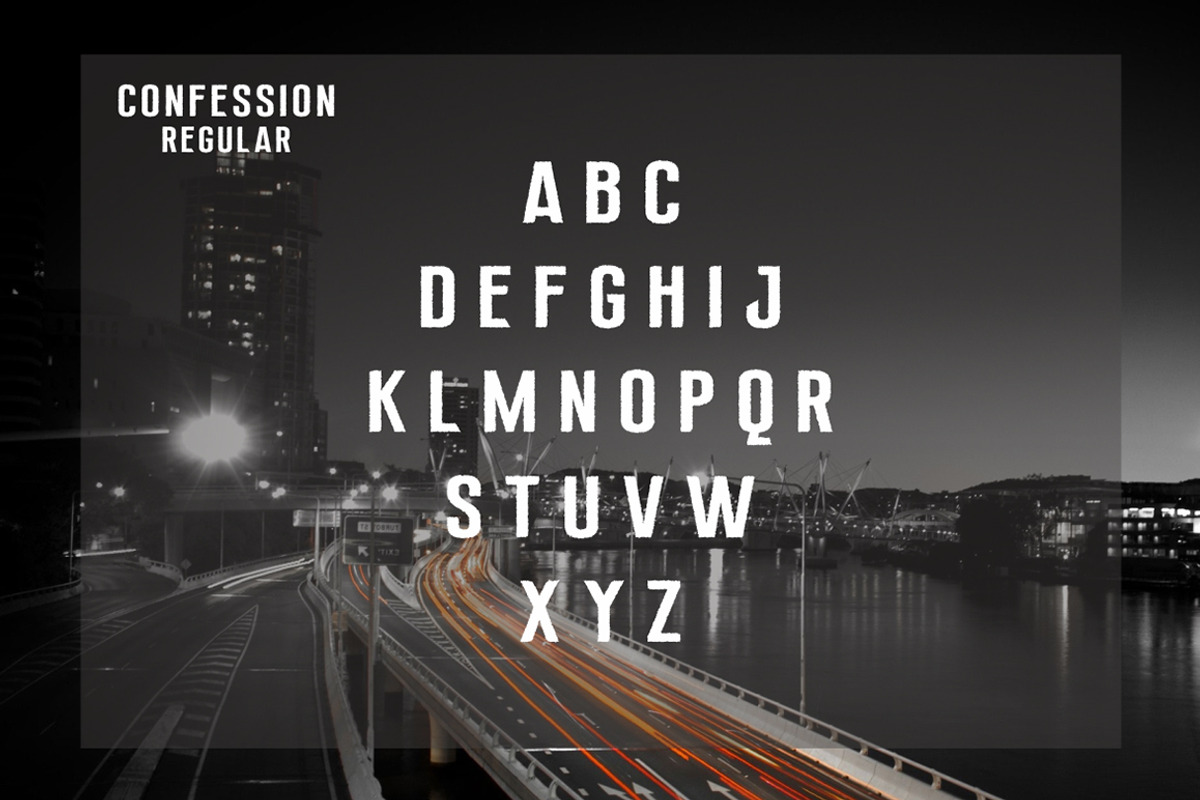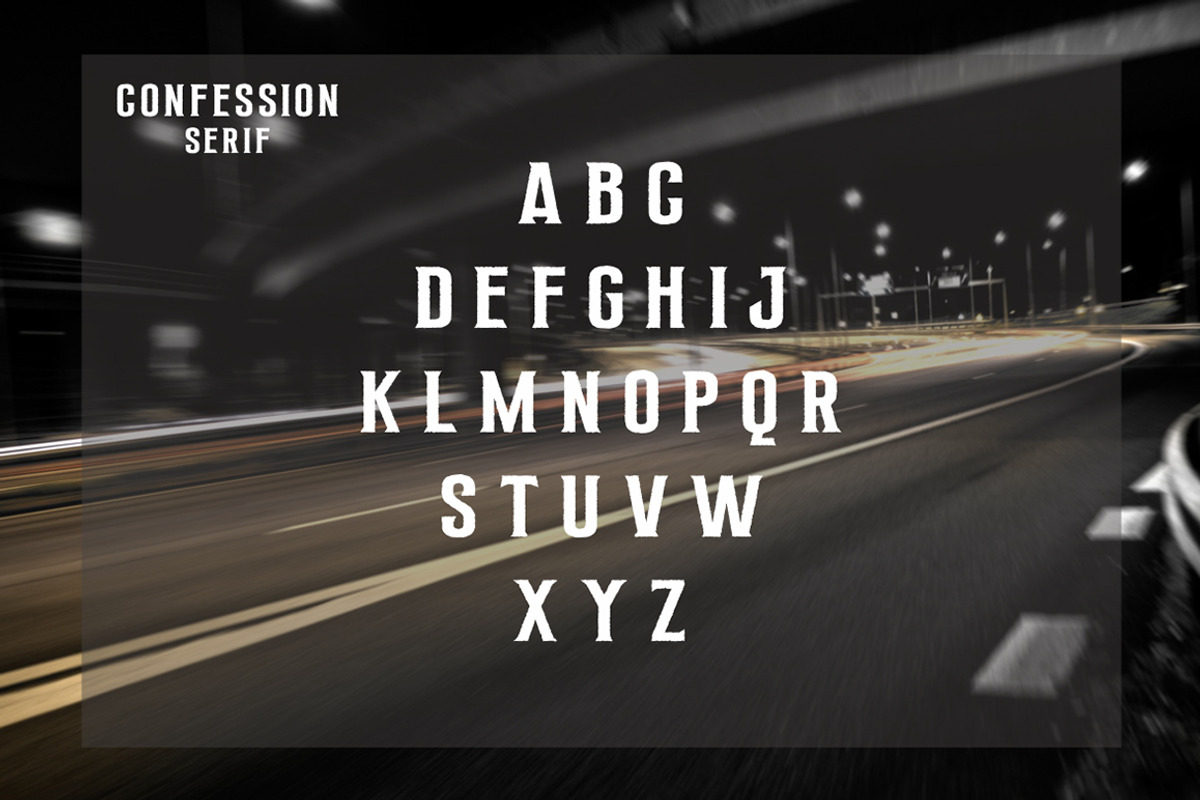
Confession typeface (introsale)
Confession typeface (introsale) by Rvq Type Foundry is a font selected for branding, posters, packaging, typography.
- The Confession includes a full set of capital and lowercase letters, as well as multi-lingual support, currency figures, numerals, punctuati
- Character Set A-Z
- Confession is suitable font for many creative products & designs.
- CONFESSION serif Regular
- CONFESSION TYPEFACE Regular
Confession typeface (introsale) by Rvq Type Foundry fits naturally into Branding, posters, packaging, typography.